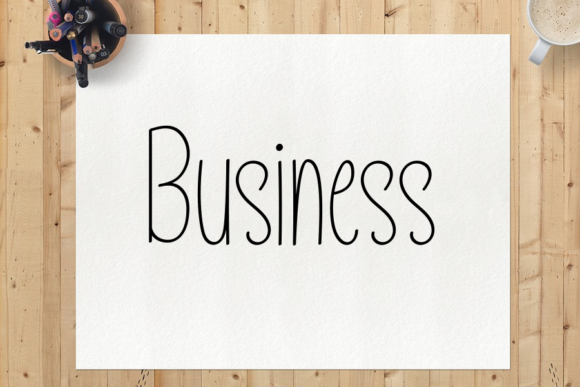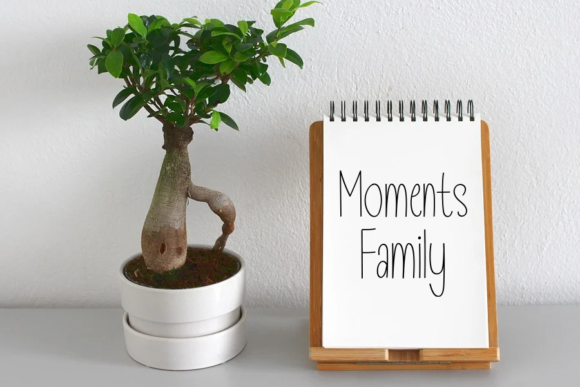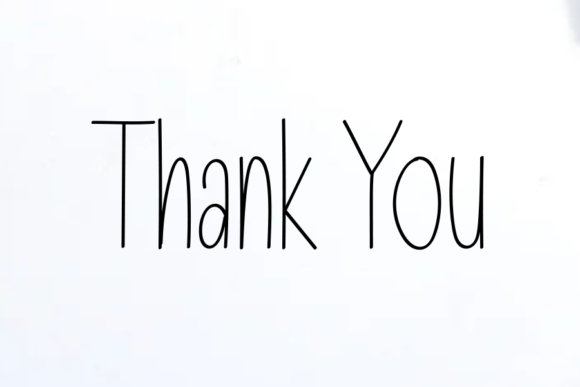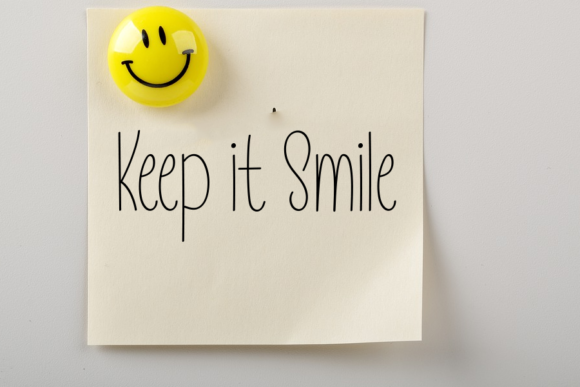
Sunday Funday Font
“Sunday Funday” is a font that radiates an aura of delicacy and enchantment, weaving a narrative that goes beyond mere letters. It’s a visual storyteller, masterfully combining the contemporary with the whimsical to create a world where each character holds a piece of magic. As you engage with this font, you’re invited into a realm of fragility and wonder, where design takes on a whole new dimension.
The font’s allure lies in its ability to seamlessly fuse the delicate with the whimsical. Every stroke of its meticulously designed characters contributes to an aesthetic that is simultaneously modern and spellbinding, igniting the imagination and invoking a sense of marvel.
As you embark on various design journeys, “Sunday Funday” becomes your companion in crafting unforgettable experiences. Whether it’s breathing life into brand identities, infusing invitations with a touch of otherworldly allure, or creating captivating social media graphics, this font’s versatility empowers you to channel its enchanting essence across diverse applications.
In essence, “Sunday Funday” transcends the boundaries of a conventional font. It’s an artistic medium that ushers your designs into a universe where fragility is a strength and magic is a reality. Its fusion of modernity and whimsy beckons creators to delve into a world of limitless creativity, where each letter becomes a brushstroke on the canvas of imagination.